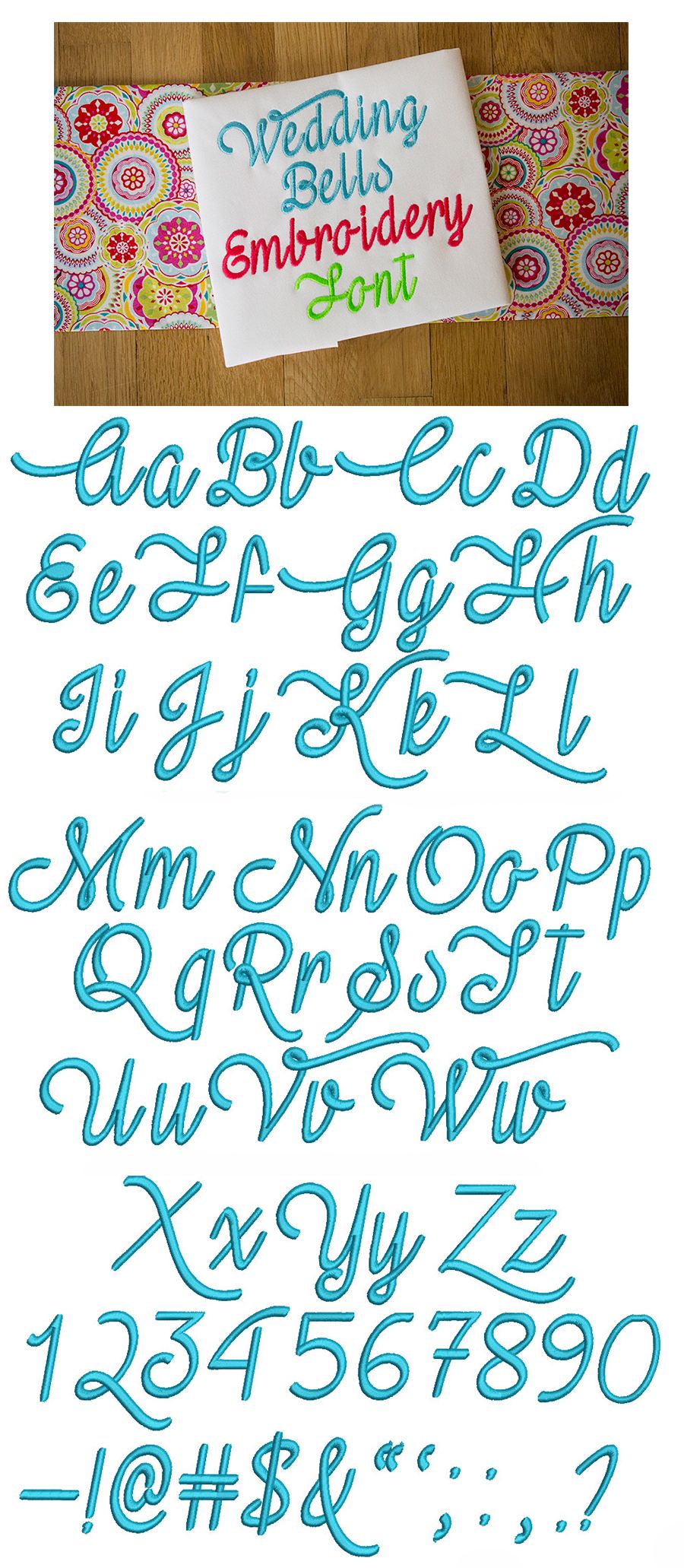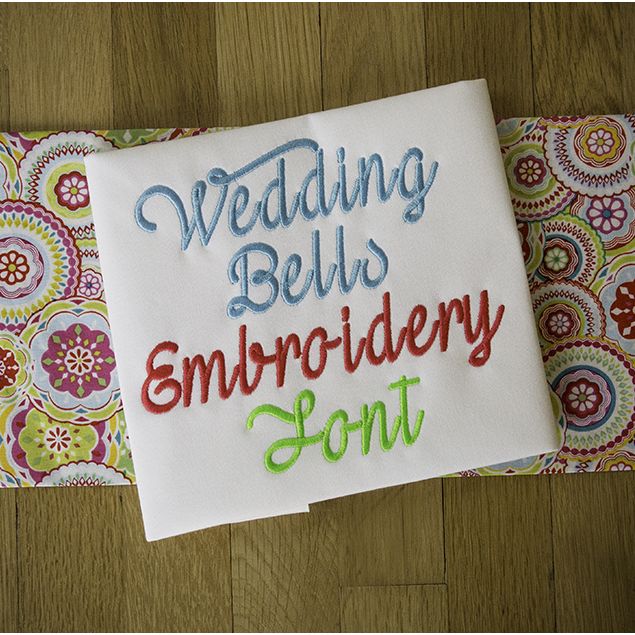
Beautiful and elegant script font with swashes on caps...great for not only weddings, but any elegant project. Ā All of our font alphabets are 100% manually digitized to bring you maximum stitch quality.